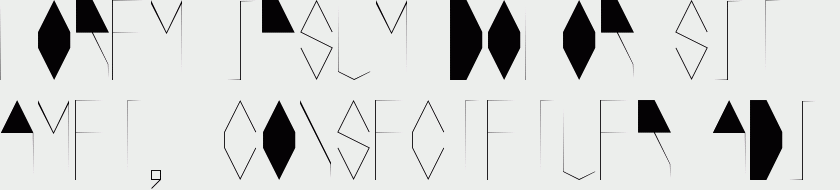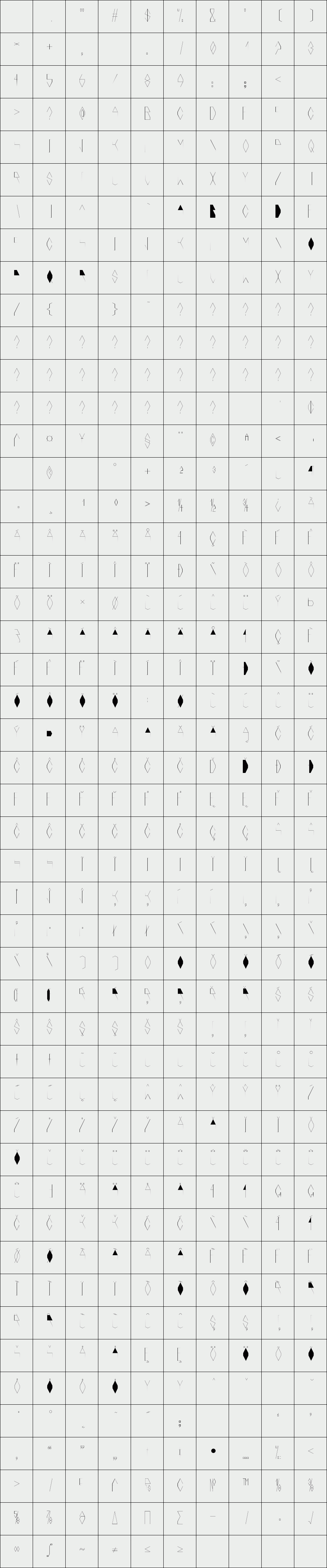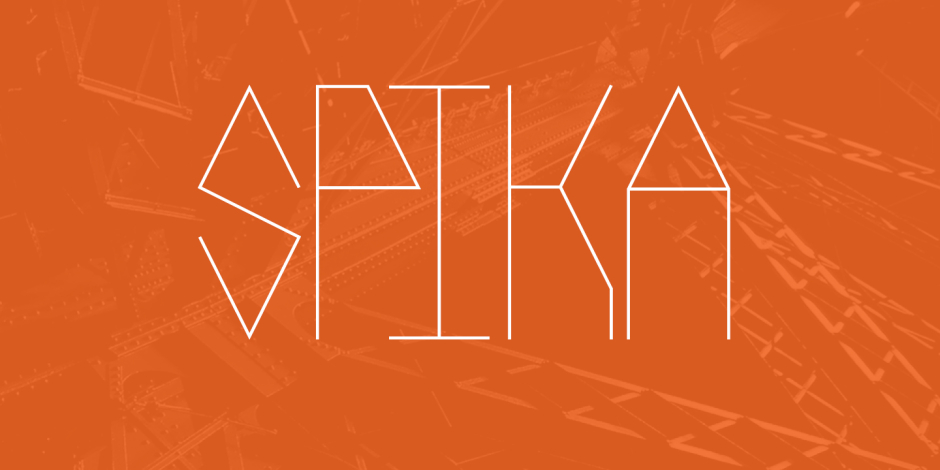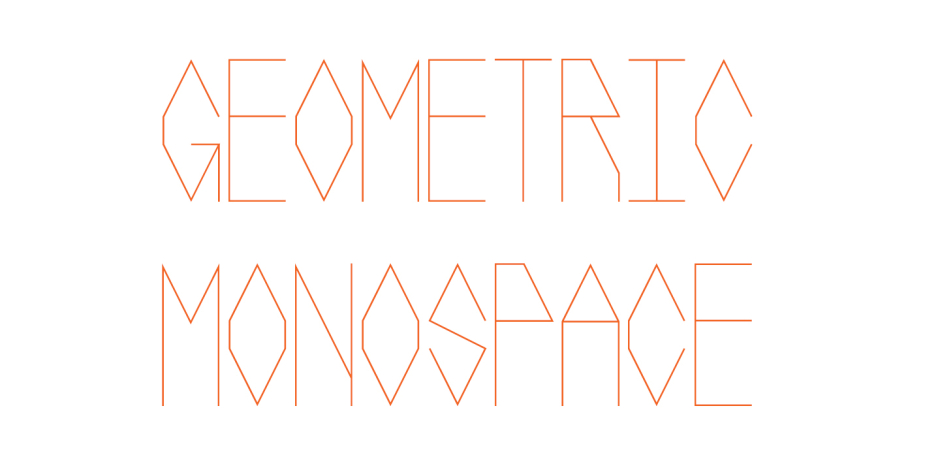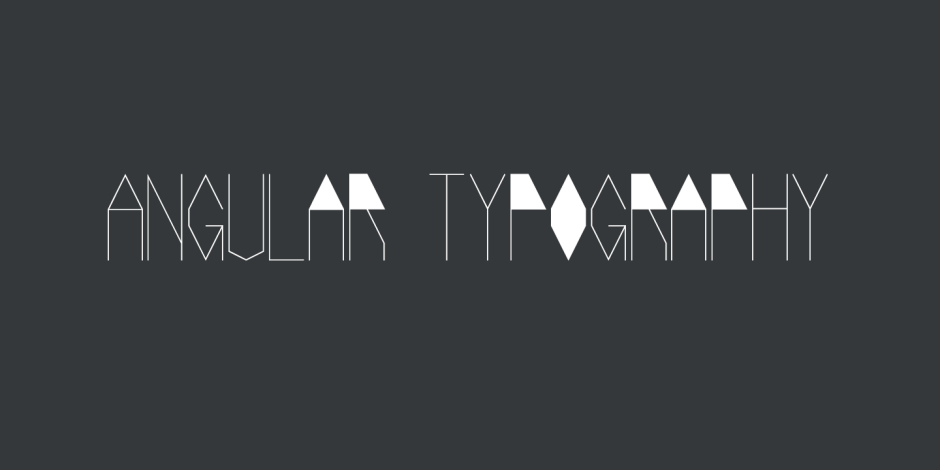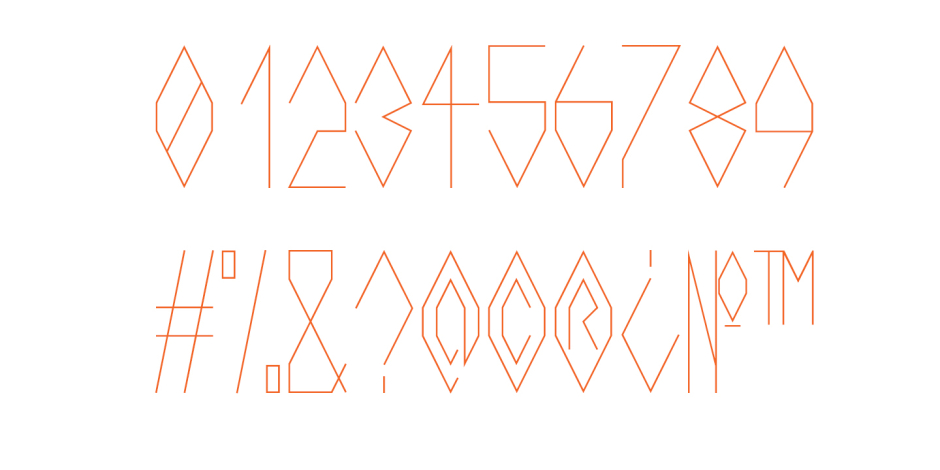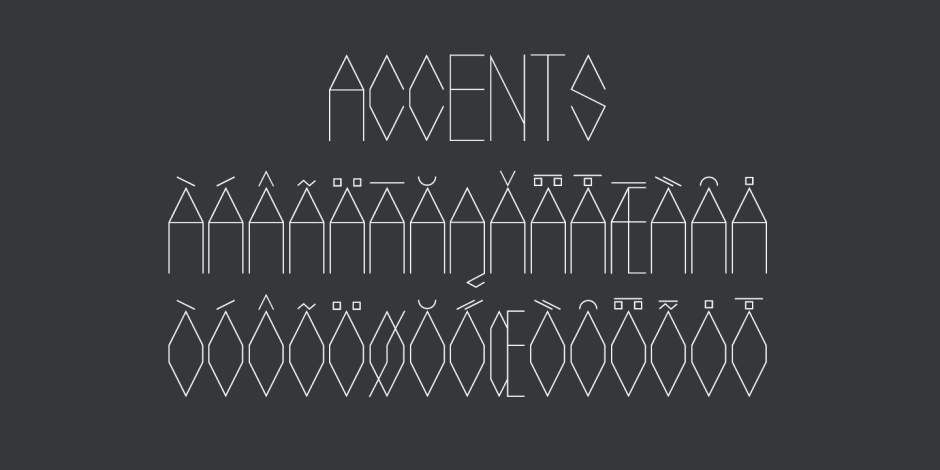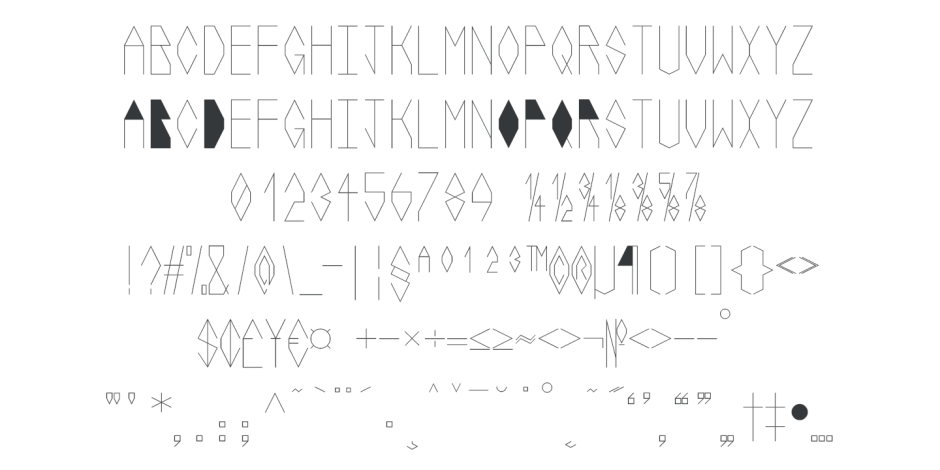
Spika
Spika is a geometric, monospaced sans serif font. This tall, condensed typeface is simple in its structure yet strong in its design.
Informed by basic geometry and inspired by simplistic, clean design principles. Spika has an almost retro style but its no nonsense design would fit well within any contemporary design applications. The font contains over 400 glyphs including loads of accented characters.